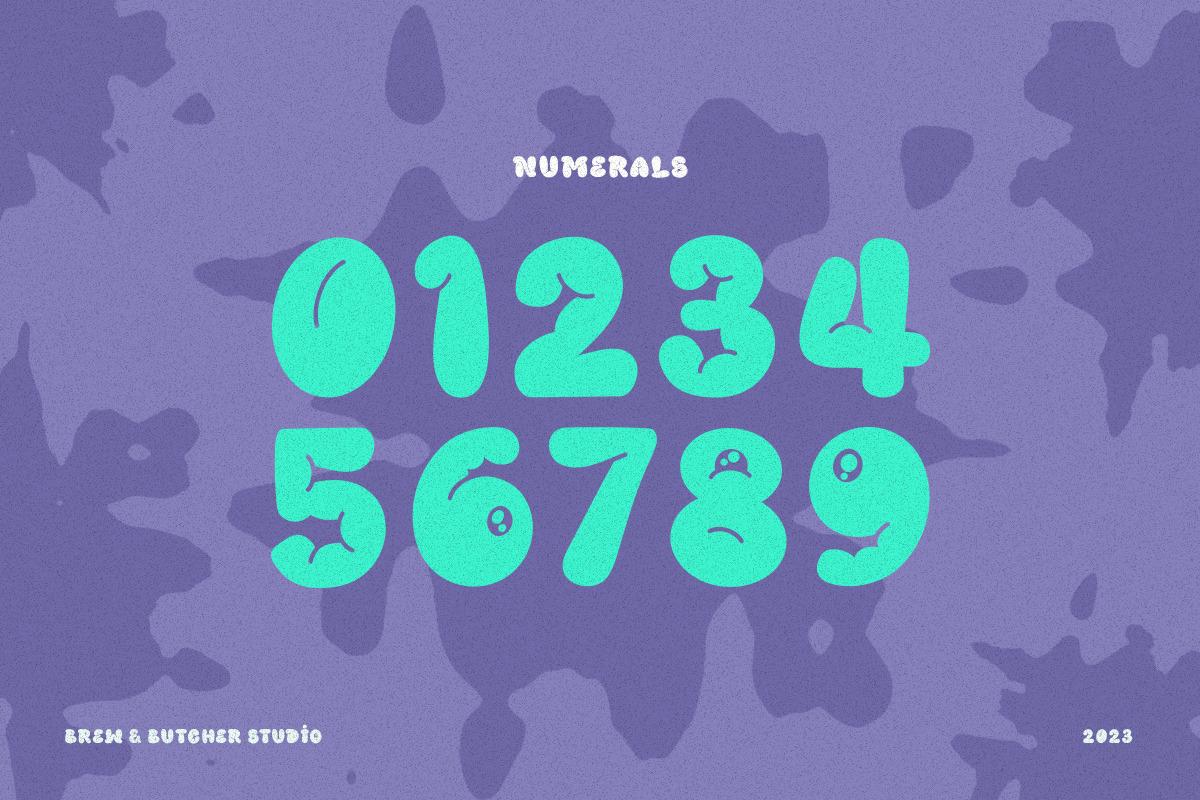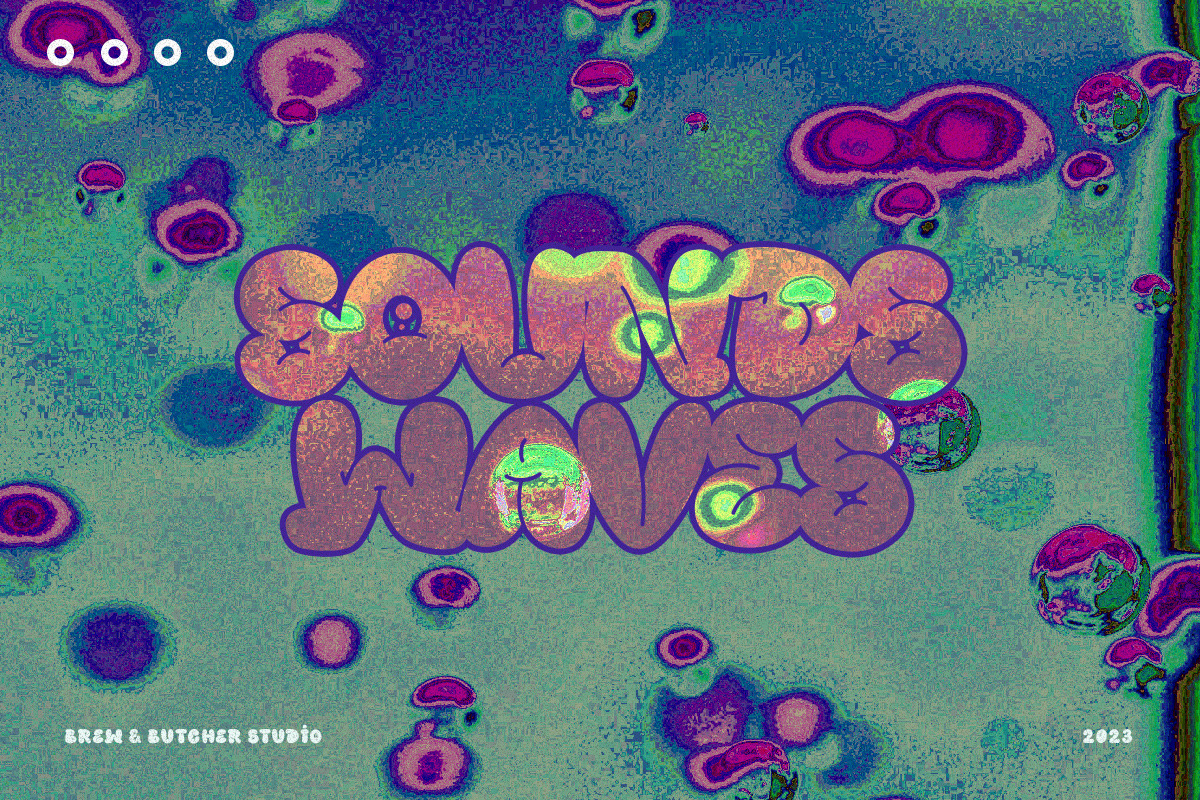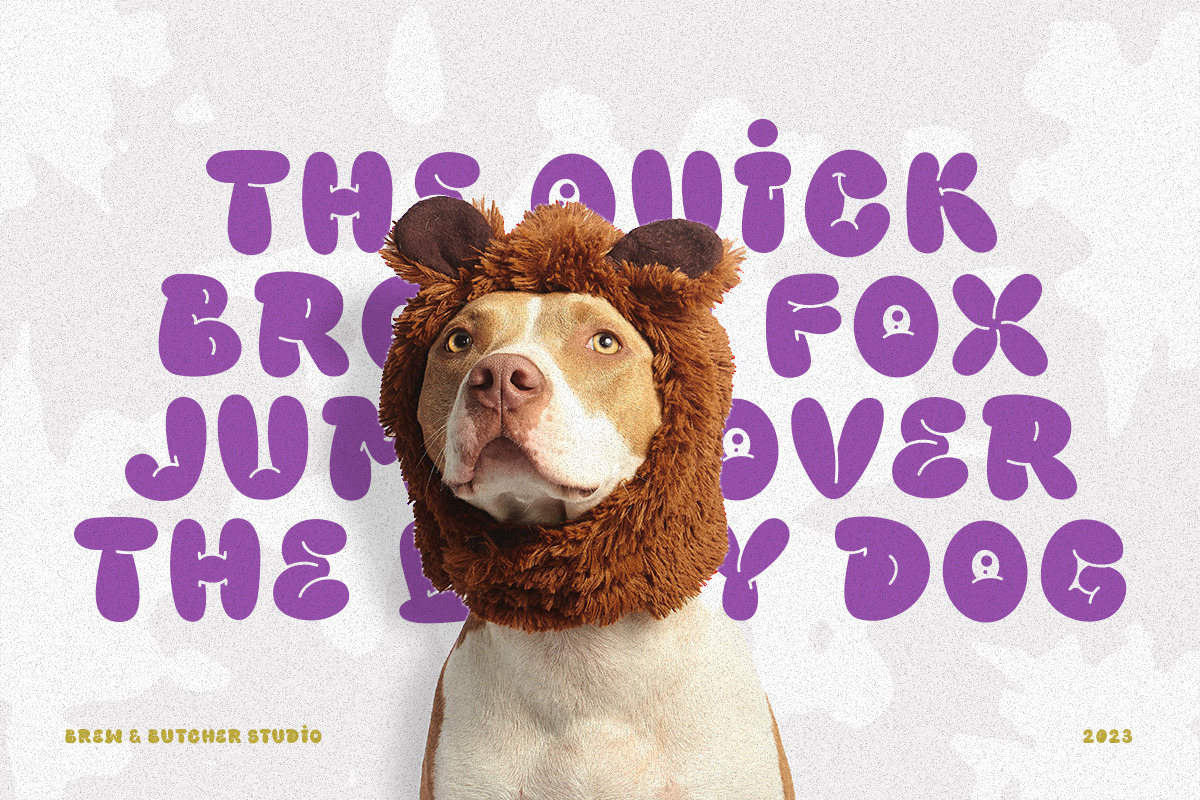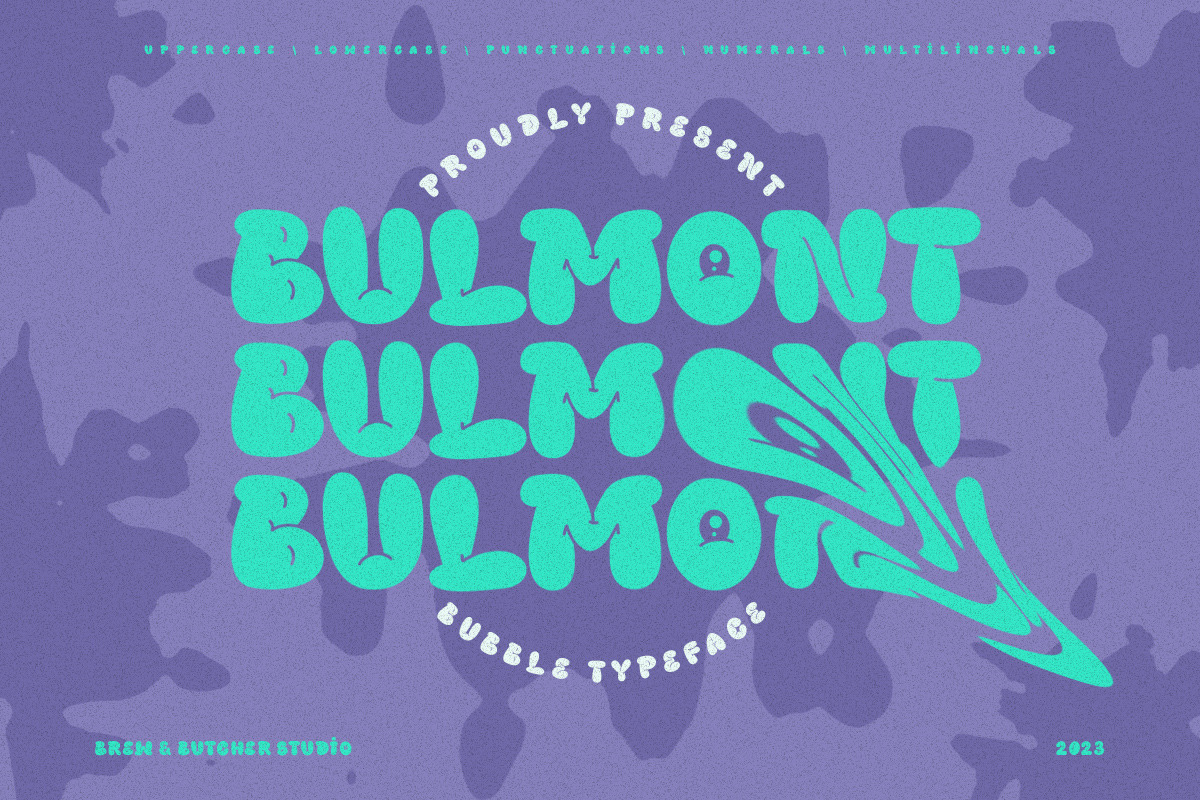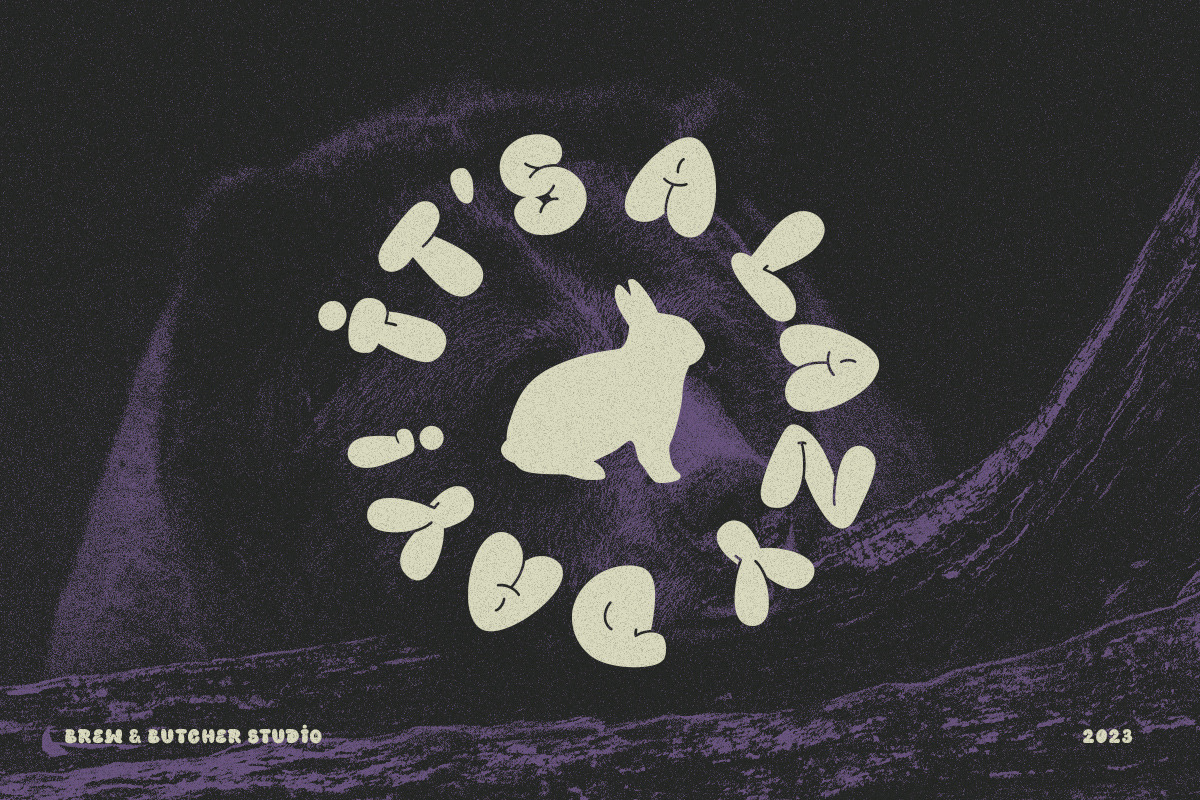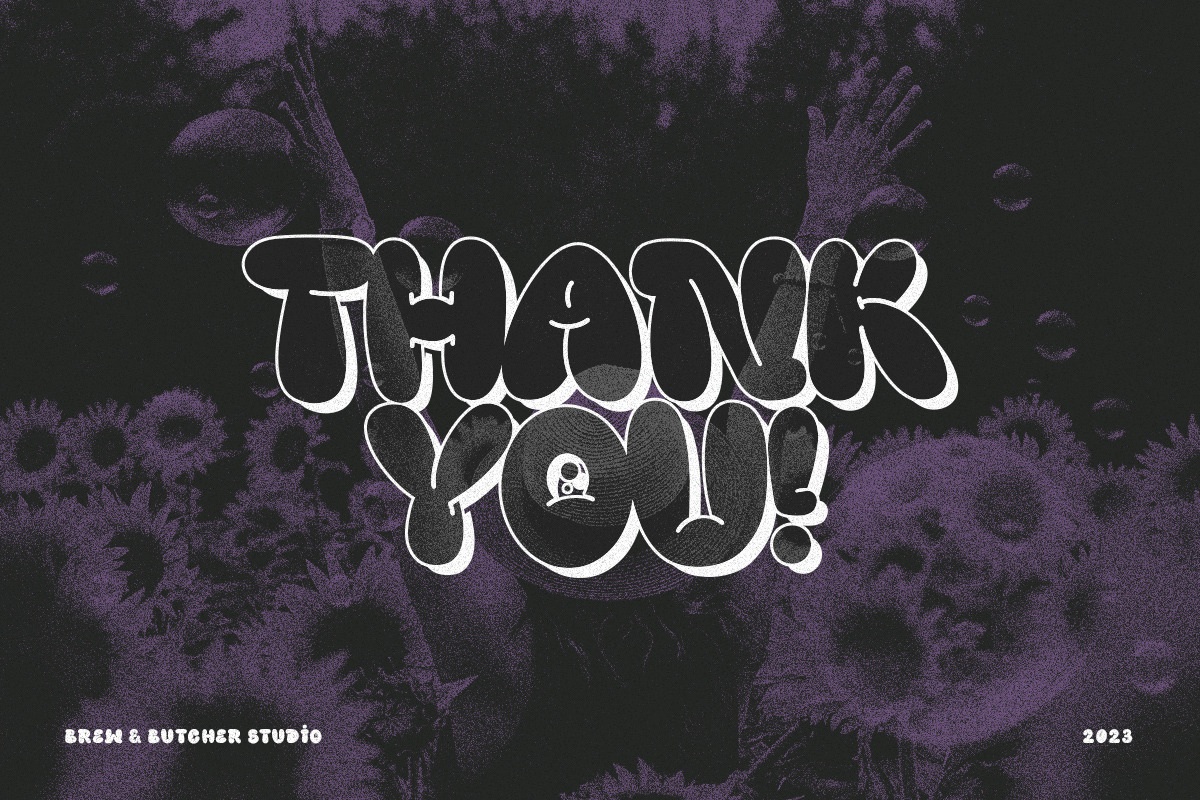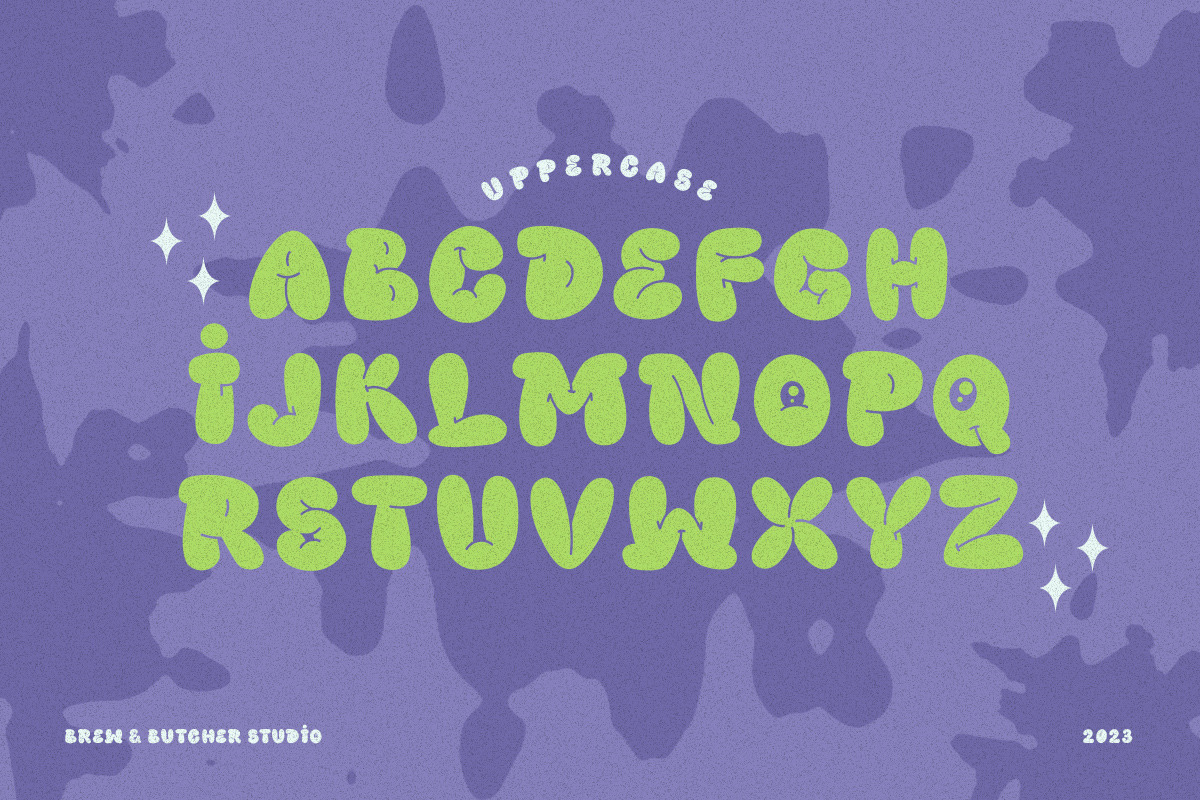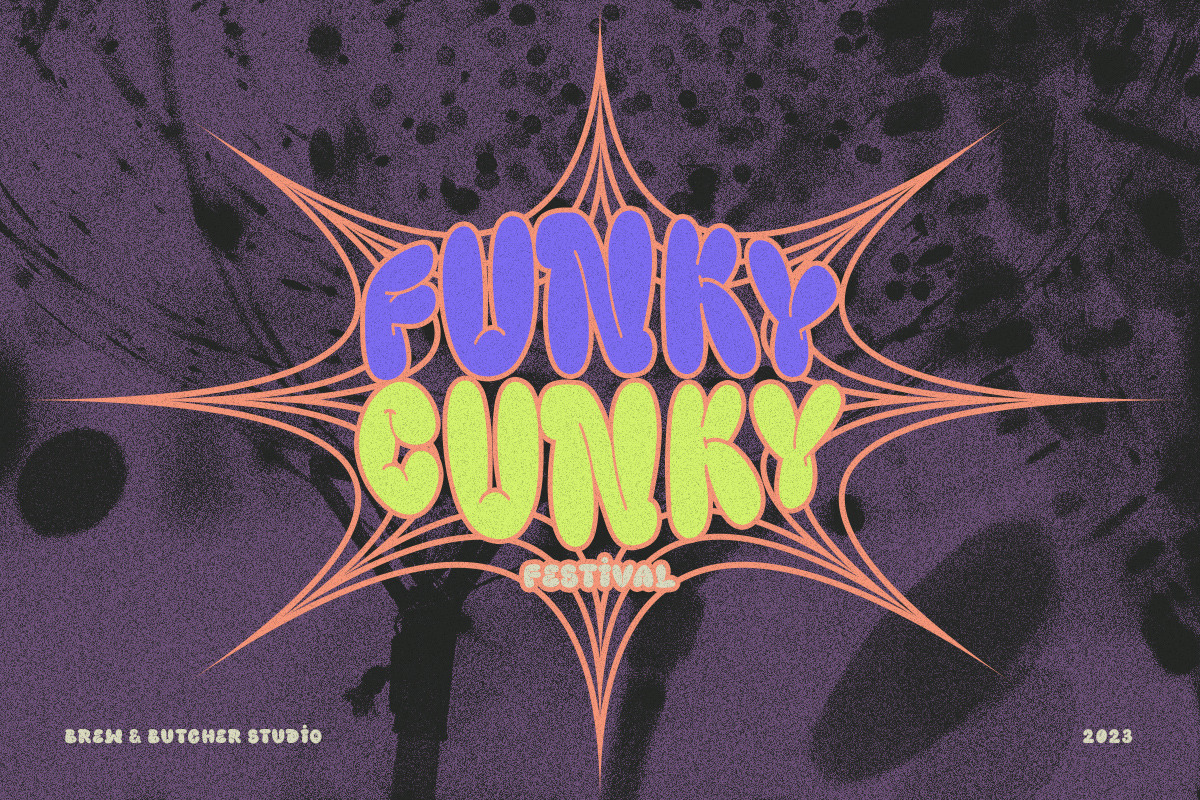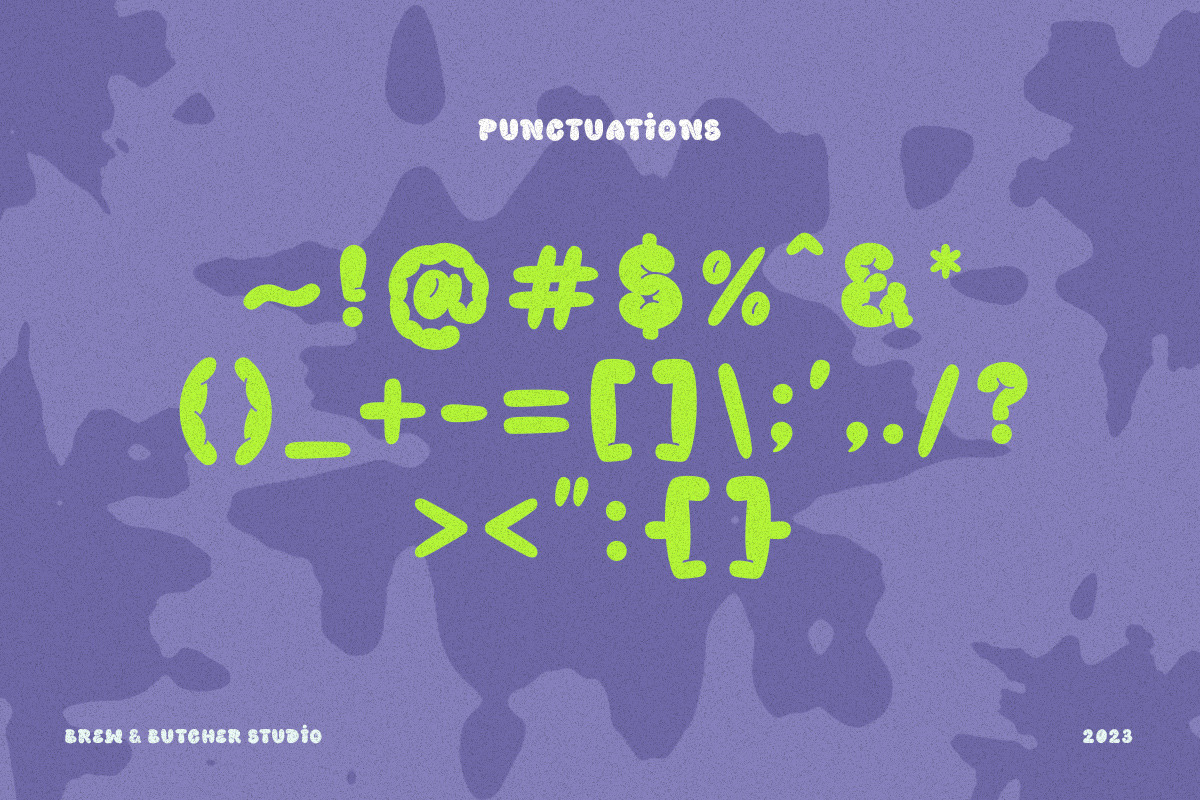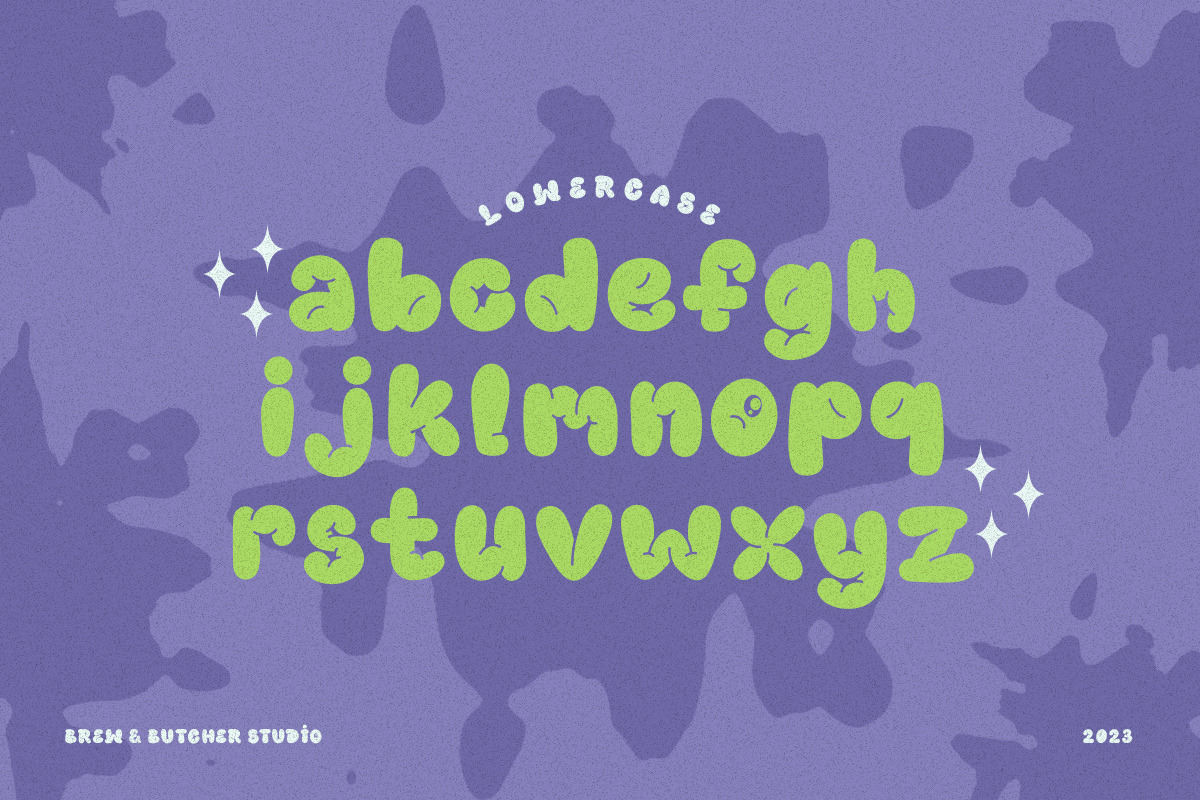
Bulmont | Bubble Typeface
Bulmont is a font that have unique character, and a puffy shape. The concept and idea of this font is a depiction of a ballon and bubble style. It has smooth curves and a very attractive firmness of shape. This font is best to use for header or headline, poster, flyer, banner, landingpage, portfolio, name write, album covers, and etc.
- Multilanguage